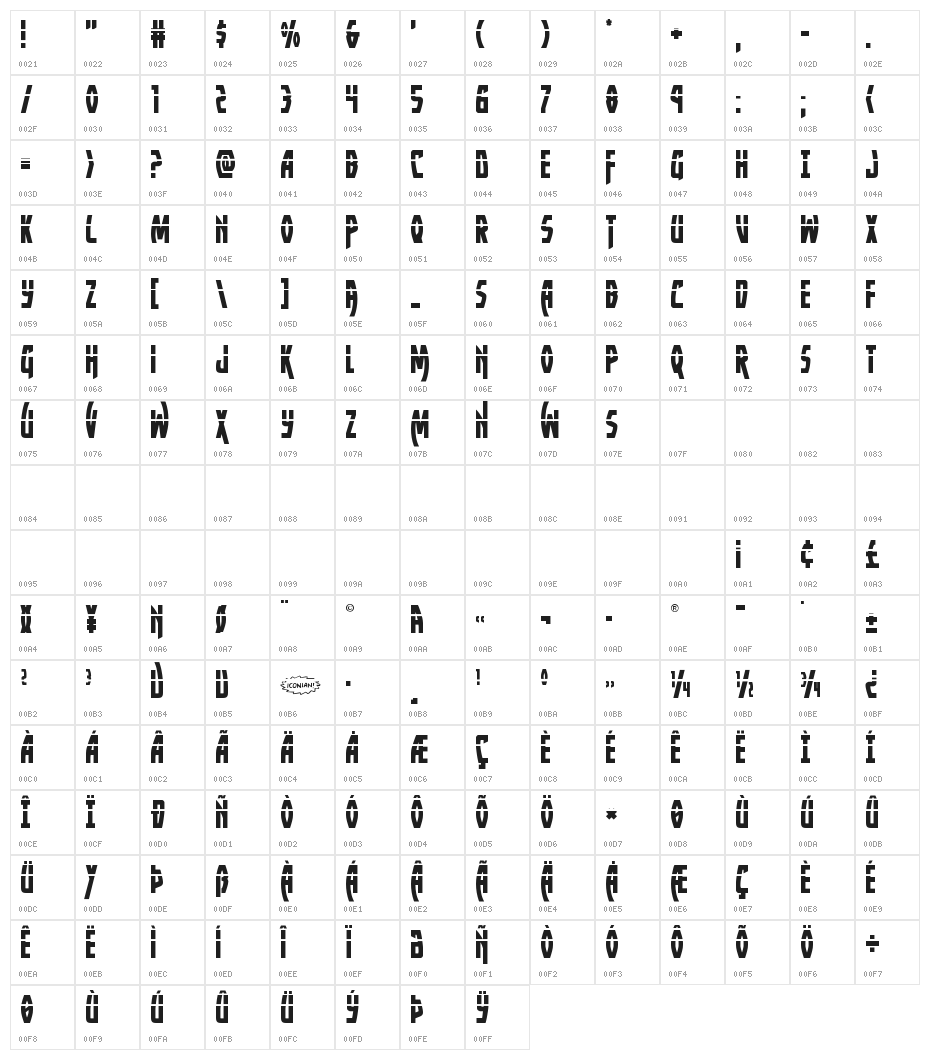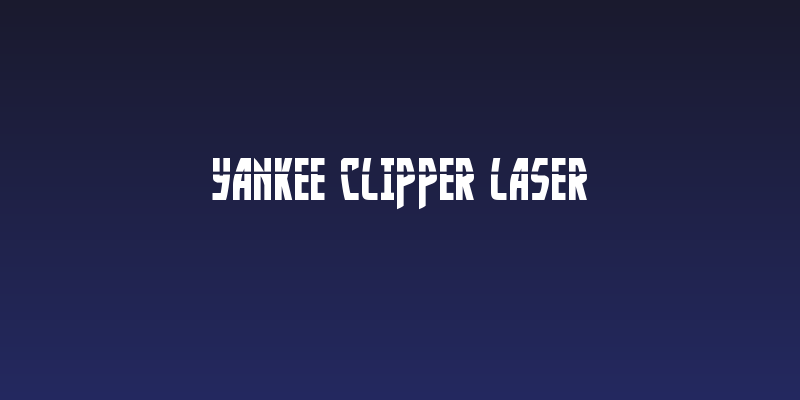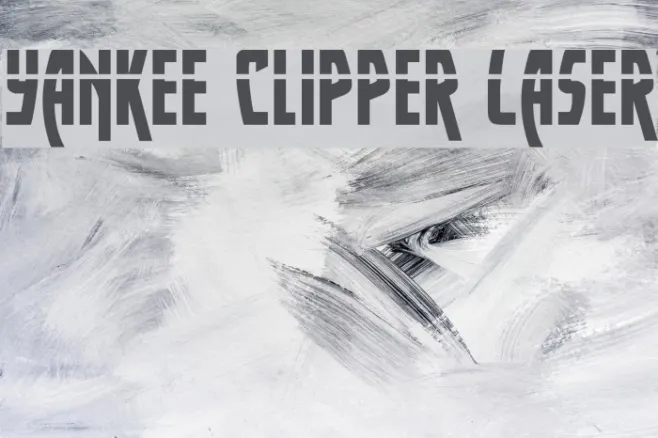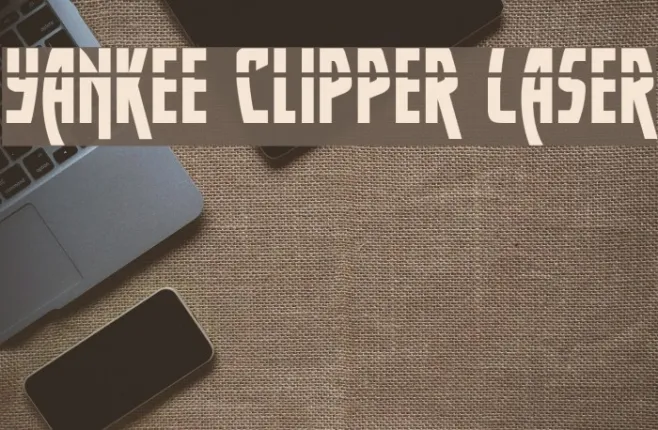
Yankee Clipper Laser Font
Yankee Clipper Laser Description
This font features a bold, geometric design with a distinct stencil-like appearance. The characters are constructed with sharp angles and straight lines, creating a futuristic and industrial feel. The uppercase and lowercase letters maintain a consistent style, with the uppercase being slightly more pronounced. Numbers and special characters follow the same design principles, ensuring uniformity across all glyphs. The font's unique cut-out sections add to its dynamic and edgy aesthetic, making it stand out in any design project.